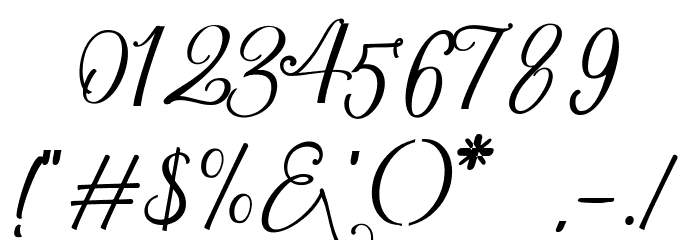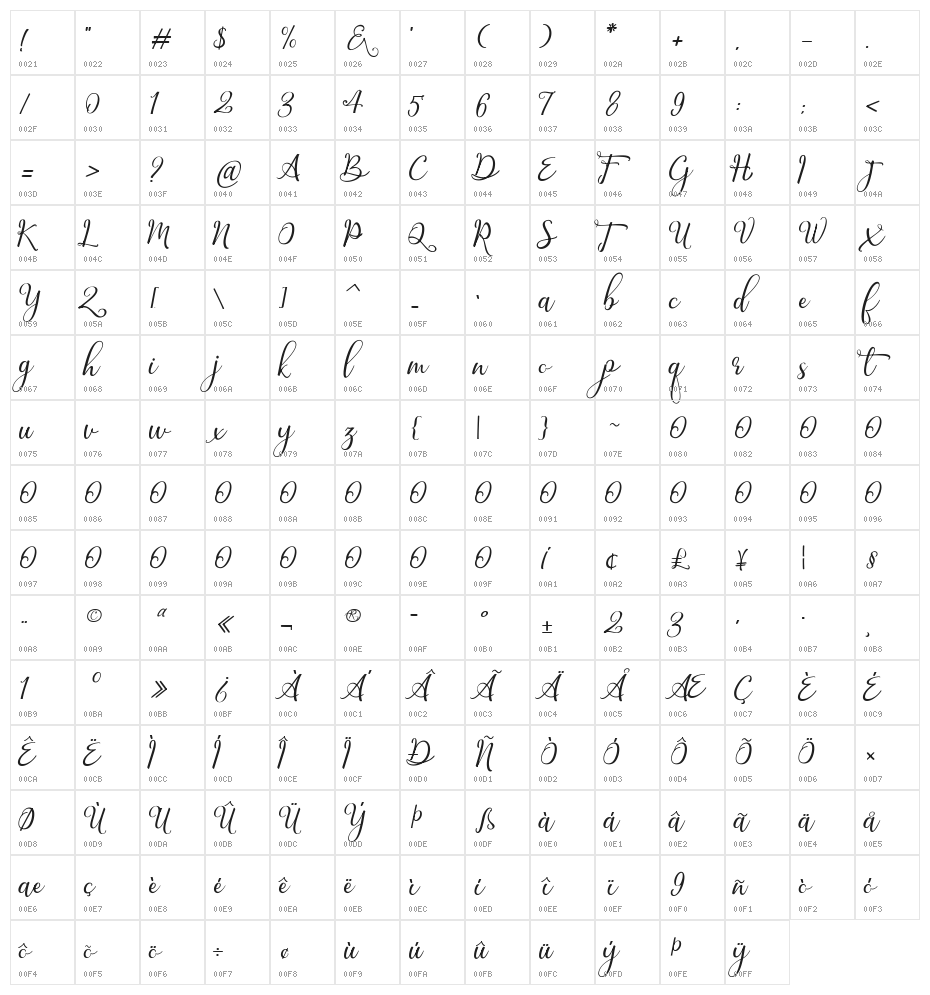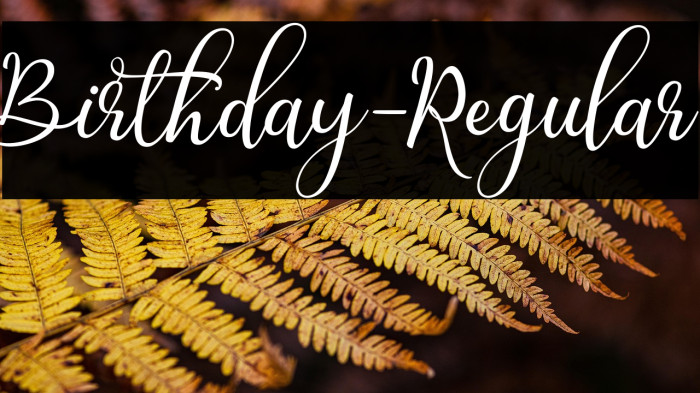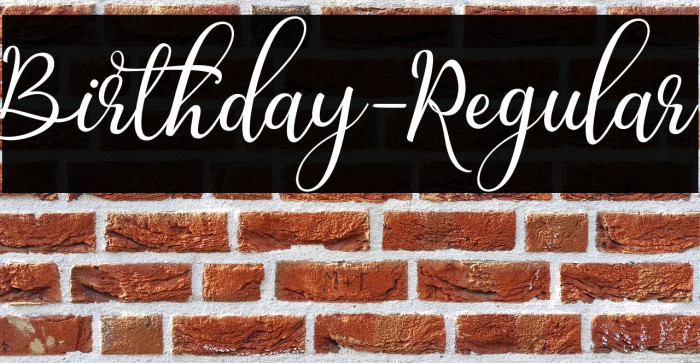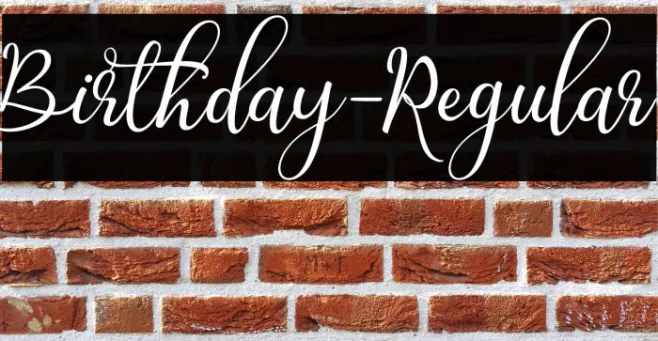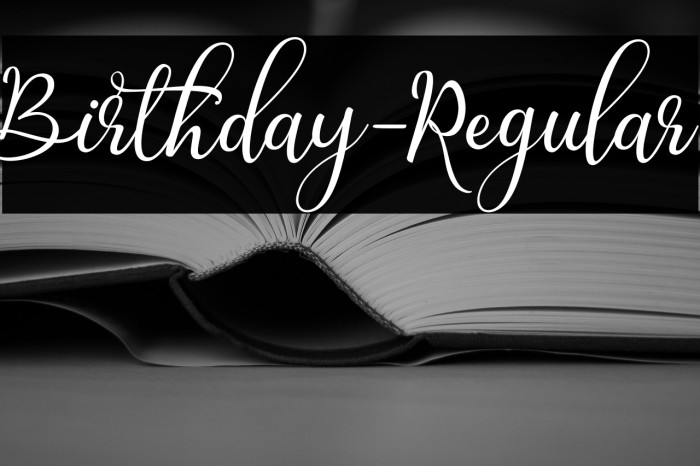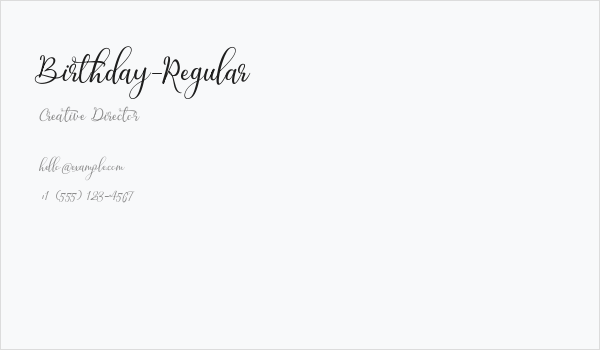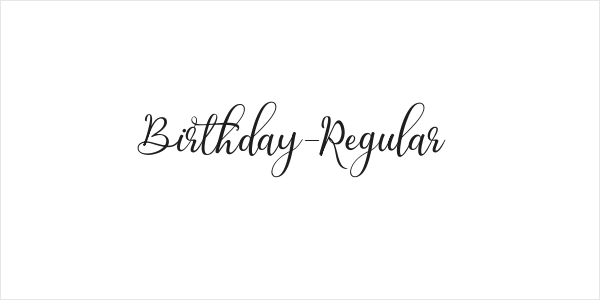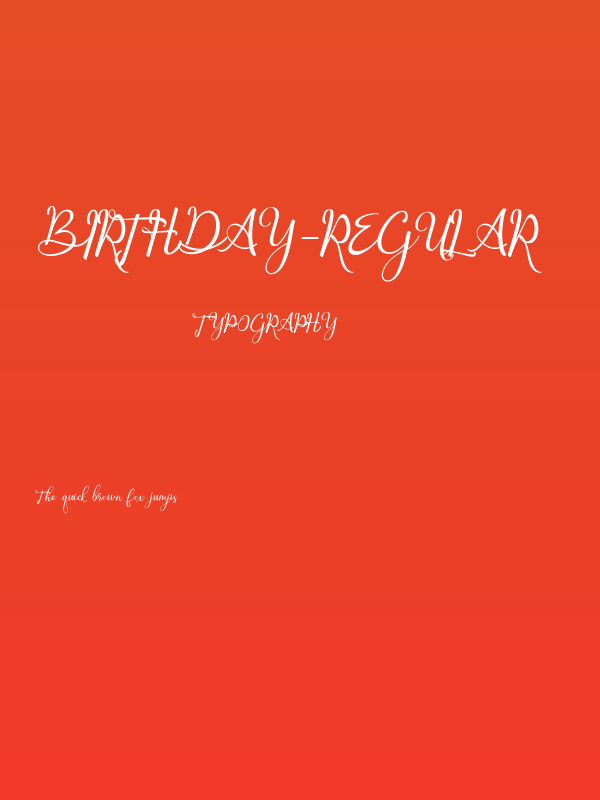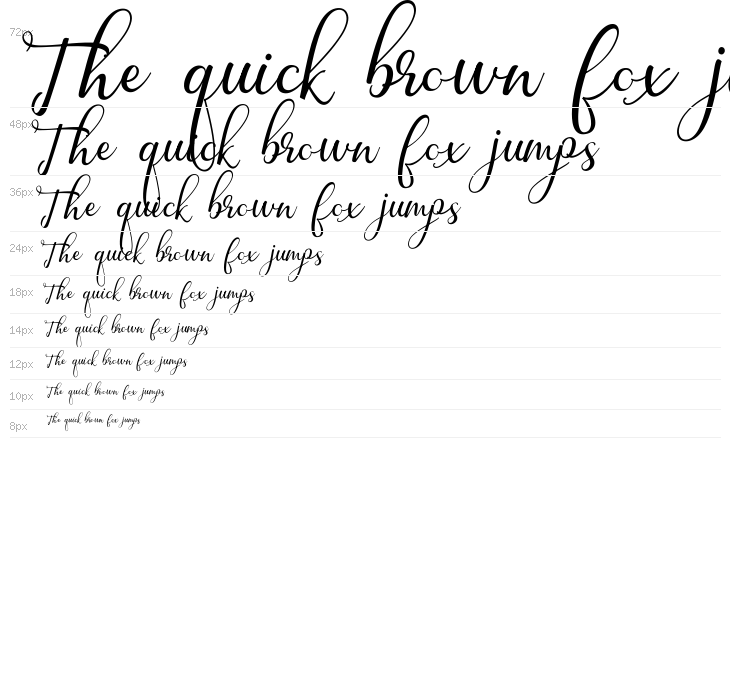
Birthday-Regular Font
Birthday-Regular Description
This font exudes elegance and sophistication with its flowing, cursive script style. The characters are intricately designed with smooth curves and loops, giving it a handwritten feel. The uppercase letters are particularly ornate, featuring elaborate swashes and flourishes that add a touch of drama. The lowercase letters maintain a consistent style, with gentle connections between characters that enhance readability while preserving the decorative nature. Numbers and special characters are crafted with the same attention to detail, ensuring a cohesive look across all text elements. This font is ideal for projects that require a personal, artistic touch, such as invitations, greeting cards, and branding materials.
| Use Case | Logos, Invitations, Greeting cards |
| Proposed Projects | Ideal for wedding invitations, greeting cards, personal branding, and artistic projects. |